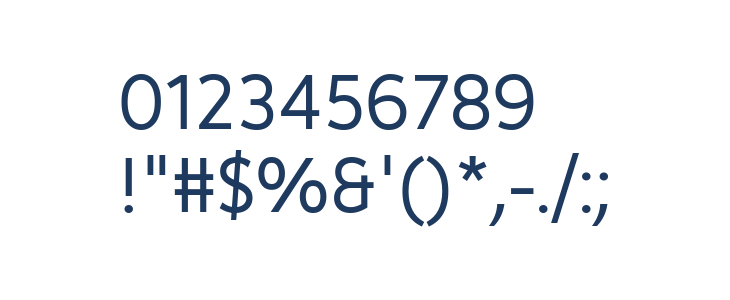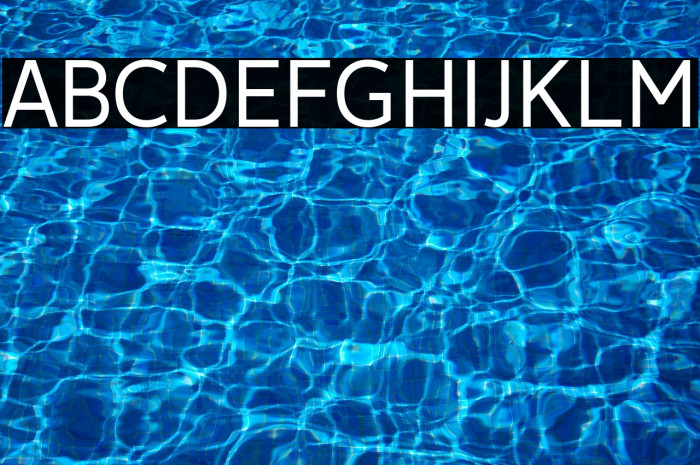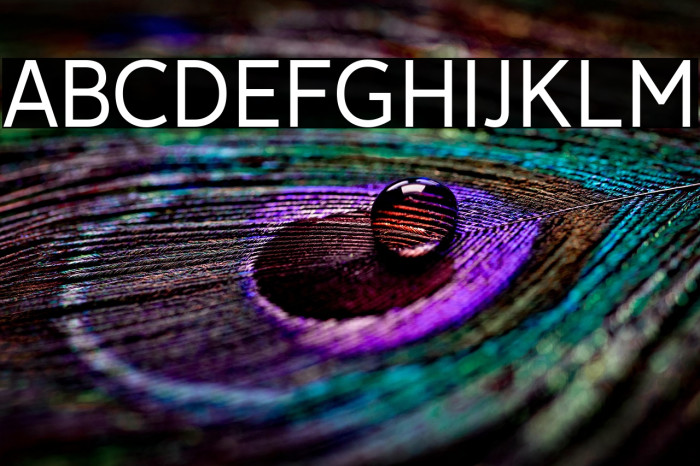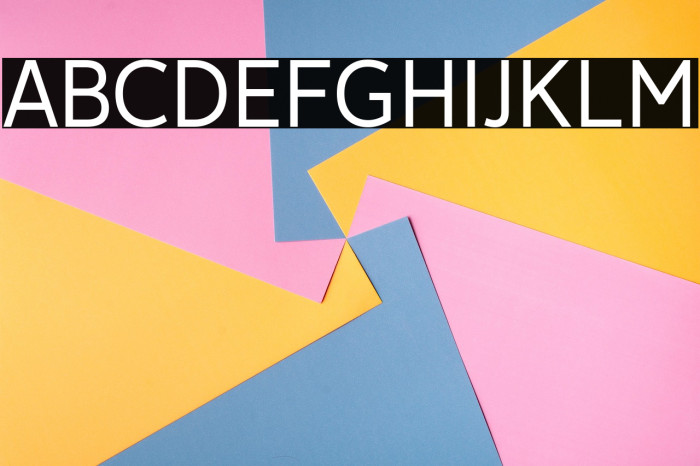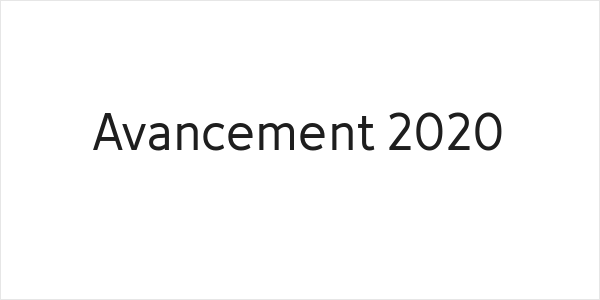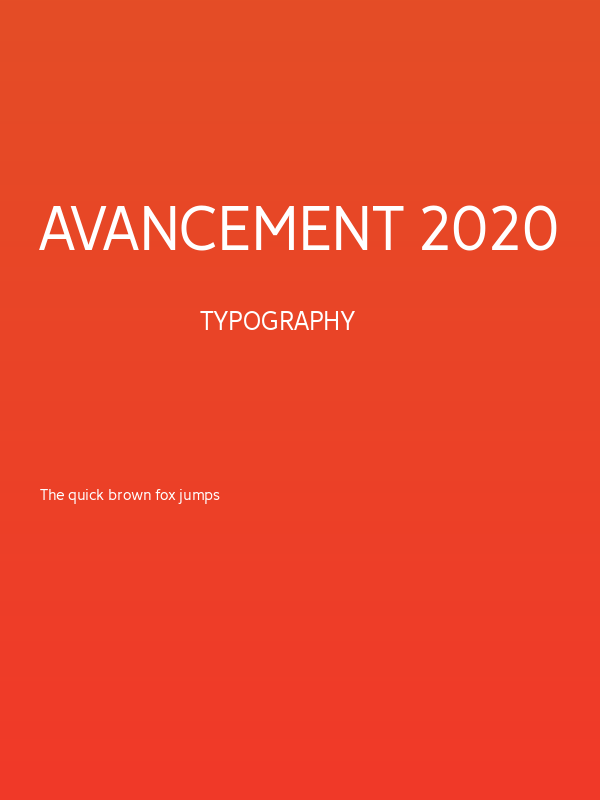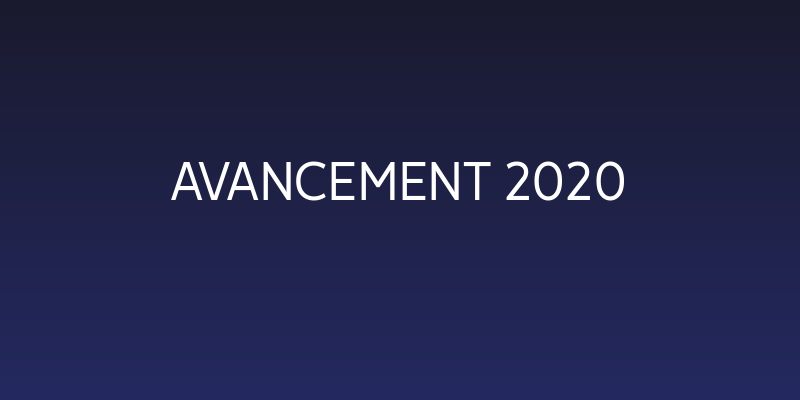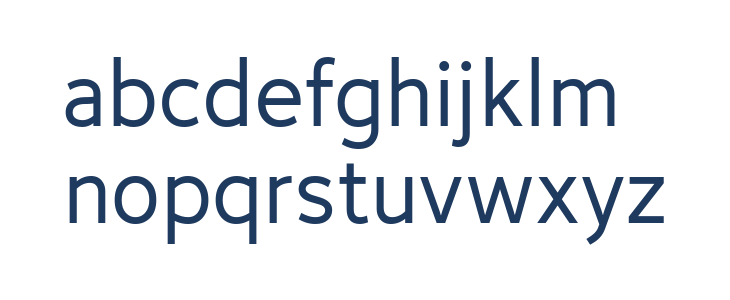
Avancement 2020 Font
Avancement 2020 Description
This font exhibits a clean and modern sans-serif style, characterized by its simplicity and clarity. The letterforms are uniform with consistent stroke widths, providing a balanced and harmonious appearance. The uppercase letters are bold and assertive, while the lowercase letters maintain a friendly and approachable demeanor. The numerals are straightforward and easy to read, making them suitable for various applications. Special characters are well-integrated, ensuring versatility in design projects. Overall, this font's design is minimalistic yet effective, making it ideal for contemporary digital and print media.
| Proposed Projects | Ideal for web design, corporate branding, digital interfaces, and print media where clarity and modernity are essential. |